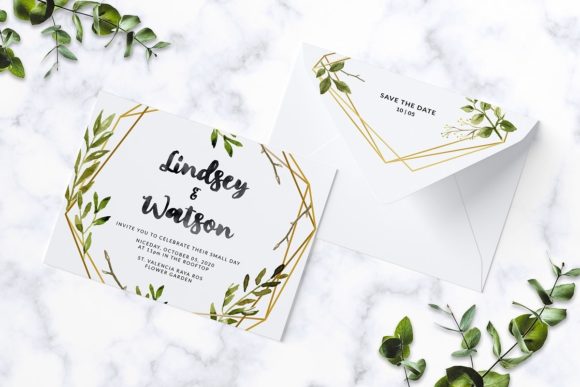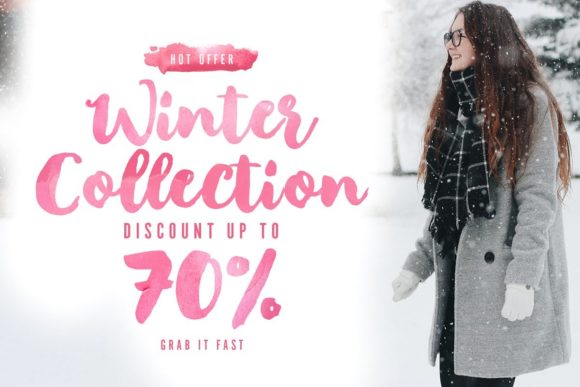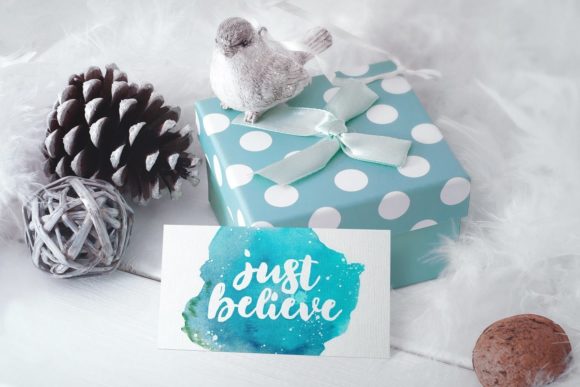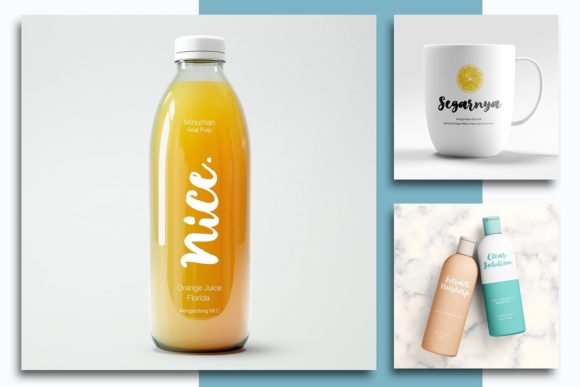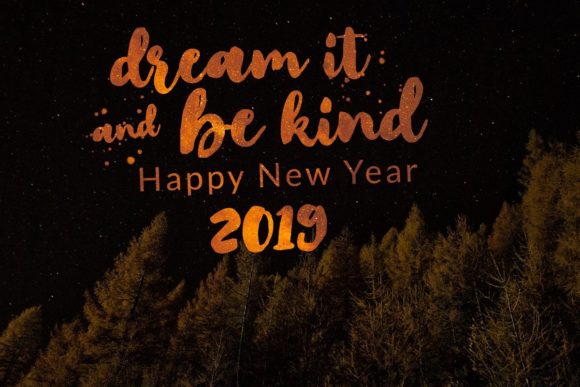
The Perfect Script for Your Next Design Project
Do you ever find yourself stuck in a design rut, yearning for something that sparks creativity and sets your work apart from the rest? For me, it’s those moments when I stumble upon the perfect font that makes my heart skip a beat. It’s like finding a hidden treasure that elevates my entire design process.
Enter the Bonsay Brush Font, a stunning script font that embodies elegance and sophistication. Crafted with precision, this font is designed to bring a touch of refinement to any design project. Whether you’re working on a wedding invitation, a branding campaign, or a digital publication, the Bonsay Brush Font is the perfect companion to help you achieve your desired look.
As a designer, you know the importance of having the right tools at your disposal. The Bonsay Brush Font is a valuable addition to any design arsenal, offering a unique blend of style and versatility that’s sure to impress.
Bonsay Brush Font Key Features
- Font Family: Bonsay Brush
- Unique Characteristics: Hand-drawn, brush-style font with unique texture and flair; ideal for creative, artistic, and whimsical designs
Bonsay Brush Font Review
I recently had the chance to dive into the Bonsay Brush Font, and I must say, it’s a unique addition to any designer’s toolkit. Here’s what I found:
- ✨ Unique brush style that adds a personal touch to designs
- ✨ Highly customizable, allowing for easy adjustments to fit any project
- ✨ Robust font weights and styles, making it versatile for various applications
- ⚠️ May not be suitable for small-scale text or titles, as the brush strokes can become overwhelming
- ⚠️ Requires some manual tweaking to achieve optimal results, especially when combining with other fonts
Overall, the Bonsay Brush Font is a creative and expressive addition to any designer’s library. While it may have some limitations, its unique style and customization options make it well worth exploring. With a bit of practice and patience, designers can unlock its full potential and create stunning, one-of-a-kind designs.
Tips: Use the Bonsay Brush Font for creative and artistic projects, such as invitations, posters, and social media graphics.
Tips: Use the Bonsay Brush Font for custom illustrations, logos, and graphics that require a unique and artistic touch.
Tips: Use the Bonsay Brush Font for presentations, reports, and other documents that require a creative and eye-catching touch.
The Bonsay Brush Font is ideal for:
- Creative and artistic projects
- Custom illustrations and graphics
- Presentation and report design
Alternatives to Bonsay Brush Font for Designers
The Great Vibes Font is a beautiful, handwritten font that is perfect for adding a touch of elegance and sophistication to your designs. It is ideal for use in headings, titles, and quotes. Great Vibes Font is more polished and refined compared to Bonsay Brush Font, making it suitable for high-end branding and advertising materials.
Carolyna Pro is a modern, brush script font that is perfect for creating a sense of luxury and exclusivity in your designs. It is ideal for use in logos, branding, and packaging materials. Carolyna Pro is more modern and sleek compared to Bonsay Brush Font, making it suitable for contemporary and minimalist designs.
The Alex Brush Font is a elegant, handwritten font that is perfect for adding a touch of sophistication and refinement to your designs. It is ideal for use in headings, titles, and quotes. Alex Brush Font is more classic and timeless compared to Bonsay Brush Font, making it suitable for traditional and vintage-inspired designs.
The Dancing Script Font is a beautiful, handwritten font that is perfect for adding a touch of whimsy and playfulness to your designs. It is ideal for use in headings, titles, and quotes. Dancing Script Font is more dynamic and expressive compared to Bonsay Brush Font, making it suitable for creative and artistic projects.